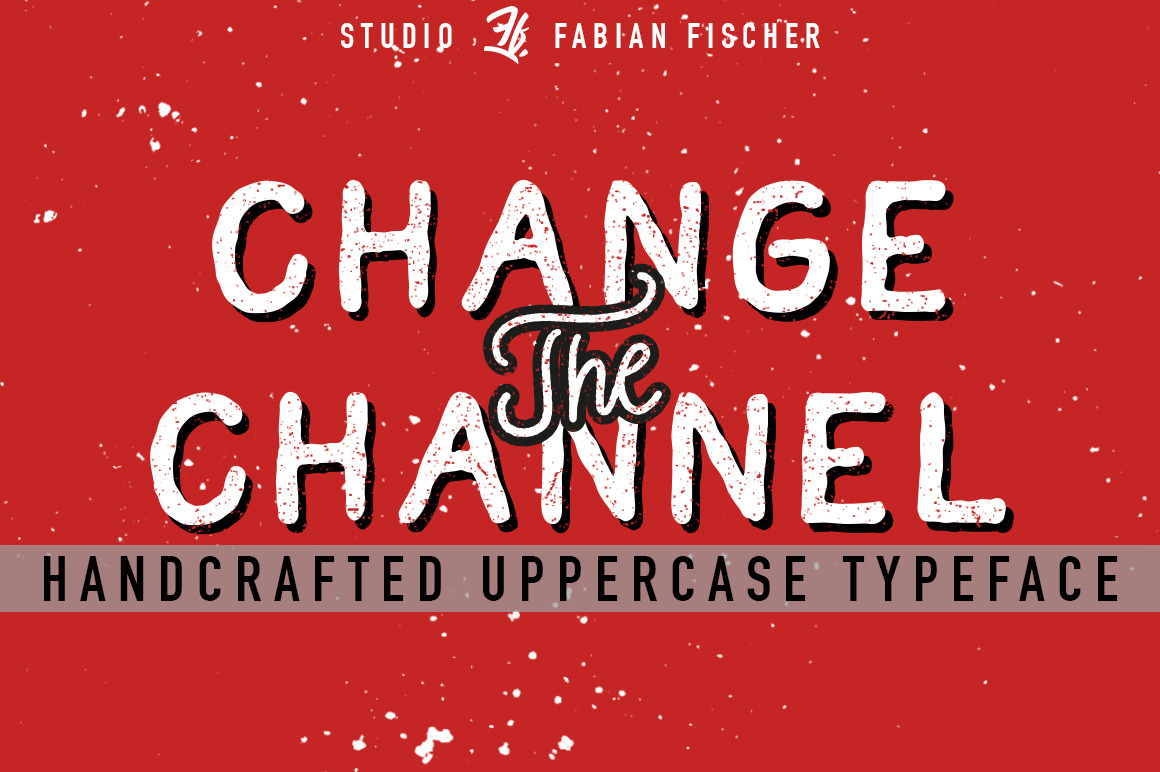
Change the Channel - Handmade Font
Change the Channel is a simple handmade font in bold style. Designed are the uppercase letters for a fancy handcrafted look. It works great for rustic or vintage style work. Great for getting that handcrafted look you've been looking for!